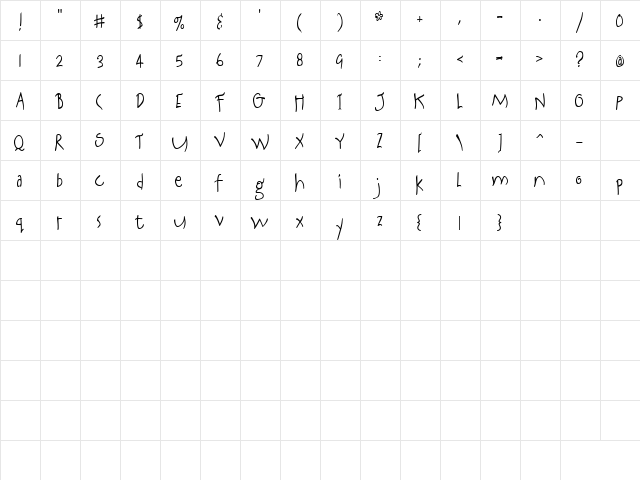
AL Whitewash Regular
Design Context for AL Whitewash Typeface
AL Whitewash takes a measured approach to typography — its balanced proportions and neutral character make it a reliable workhorse for both digital and print work.